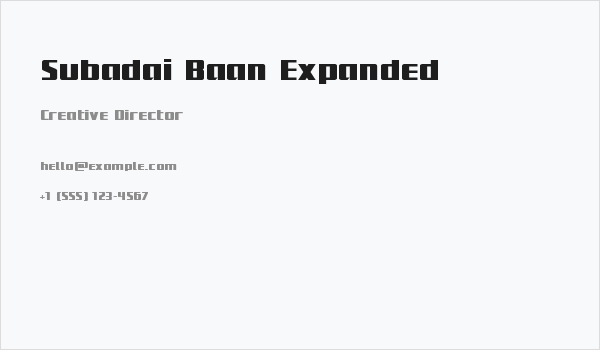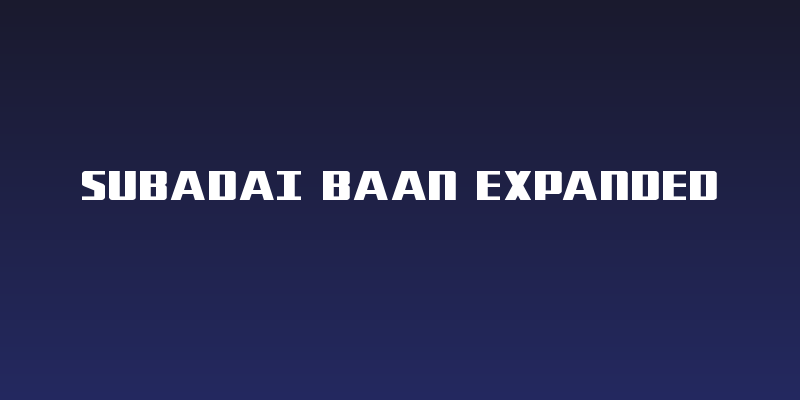
Subadai Baan Expanded Font
Subadai Baan Expanded Description
This font features a bold and robust design with a distinctly modern and geometric style. The characters are wide and expanded, giving a strong presence on the page. The uppercase letters are particularly striking, with sharp angles and clean lines that convey a sense of authority and confidence. The lowercase letters maintain the same boldness, ensuring consistency throughout the text. Numbers and special characters are equally bold, making them stand out effectively. The overall design is highly suitable for attention-grabbing headlines or titles, where impact is essential. The font's expanded width and uniform stroke weight contribute to its commanding appearance, making it ideal for projects that require a strong visual statement.
| Proposed Projects | Ideal for headlines, posters, branding, and any design needing a bold statement. |